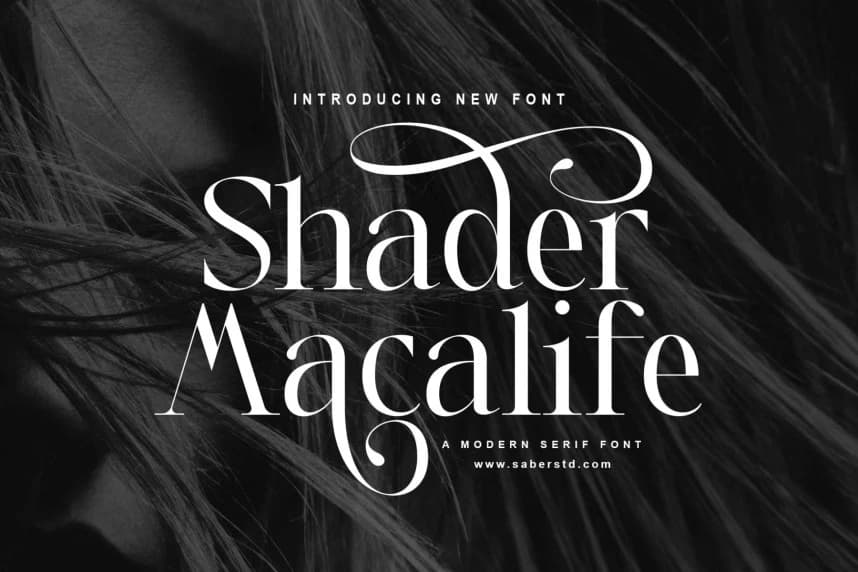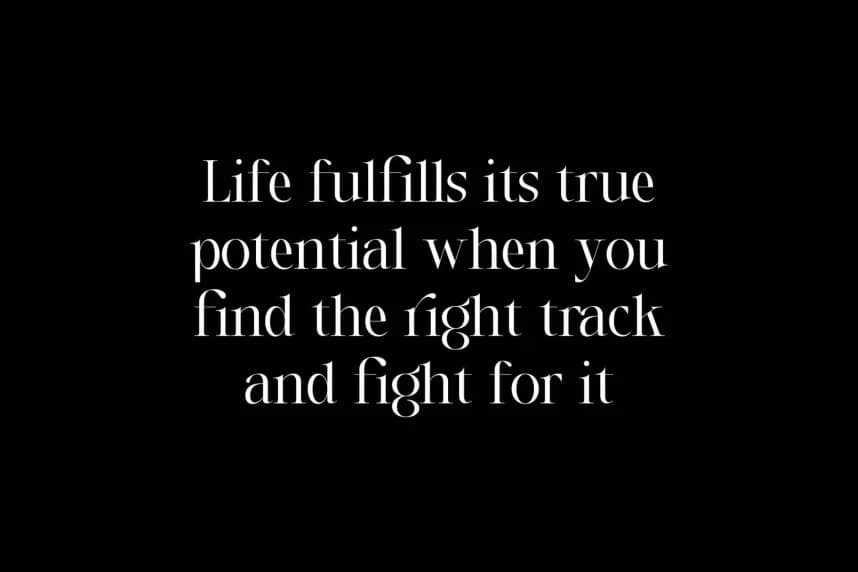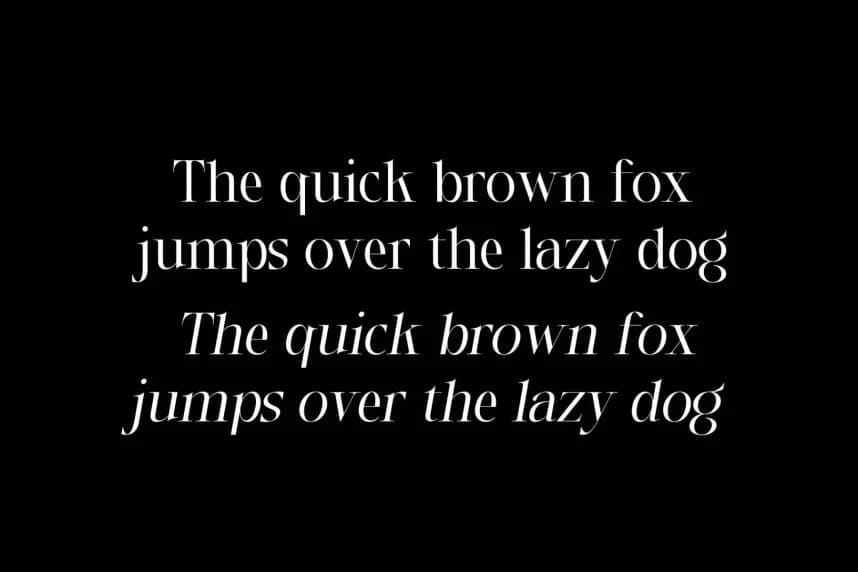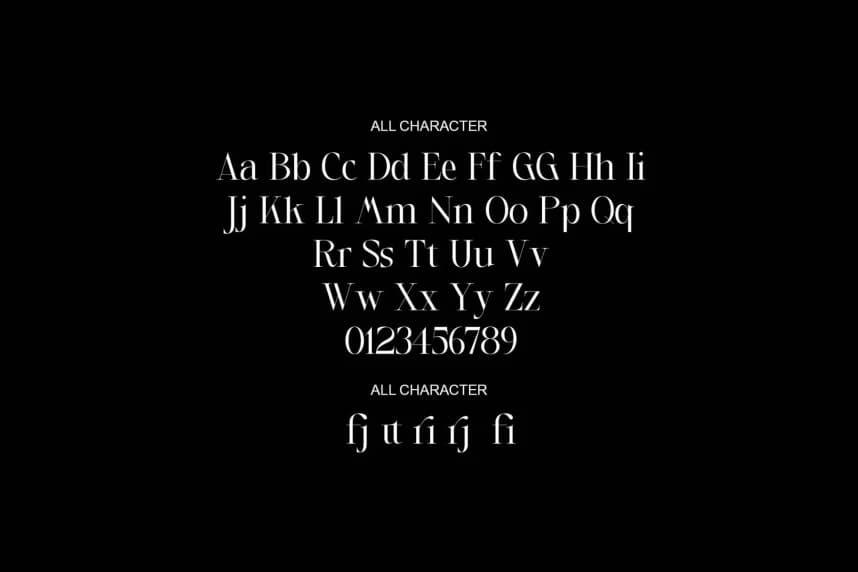
Shader Macalfe Font
Shader Macalife Font is a modern and awesome serif font with a natural style. This font is suitable for your current or classic design: Signature. Logo. Branding. Invitation. Blog Headline and many more.